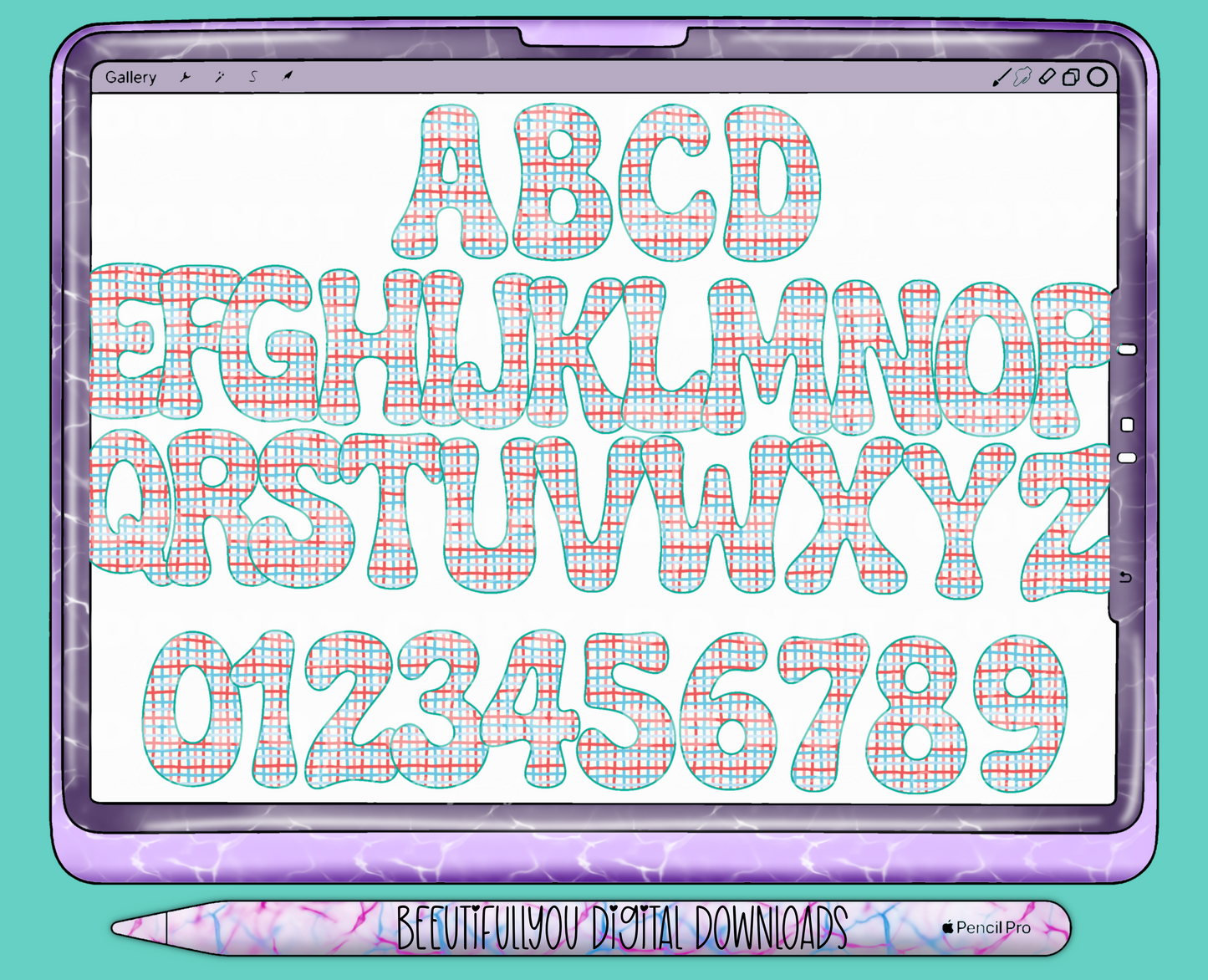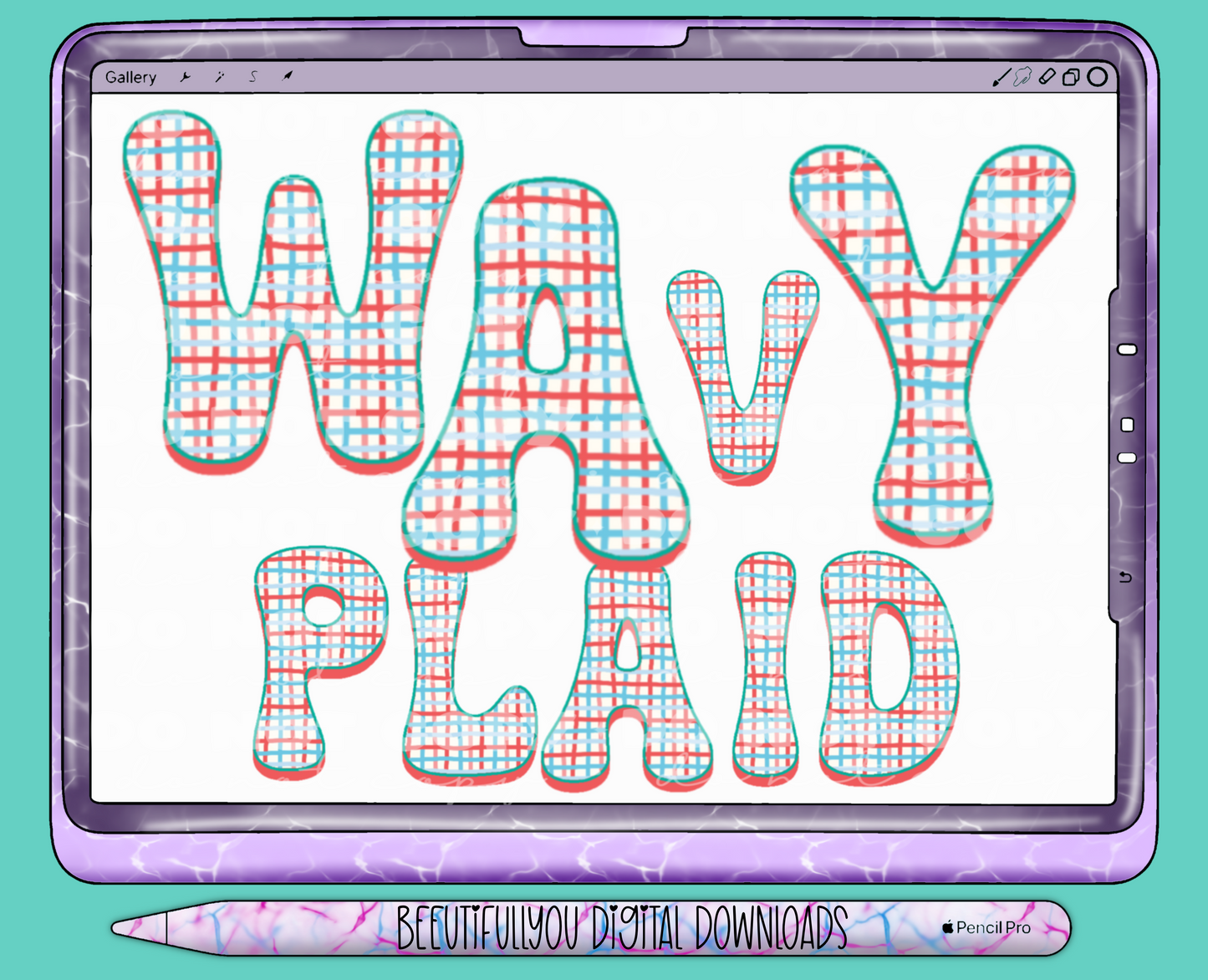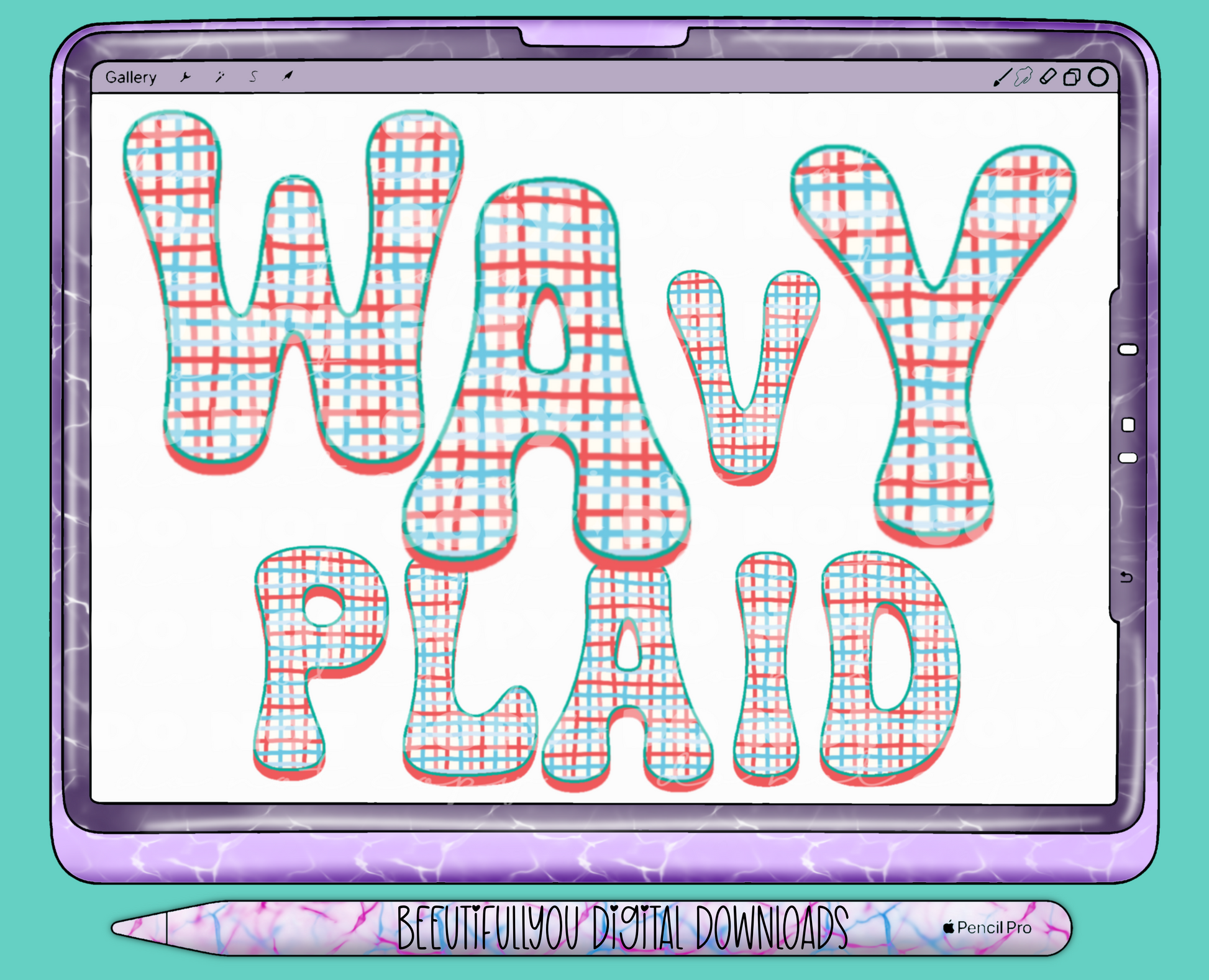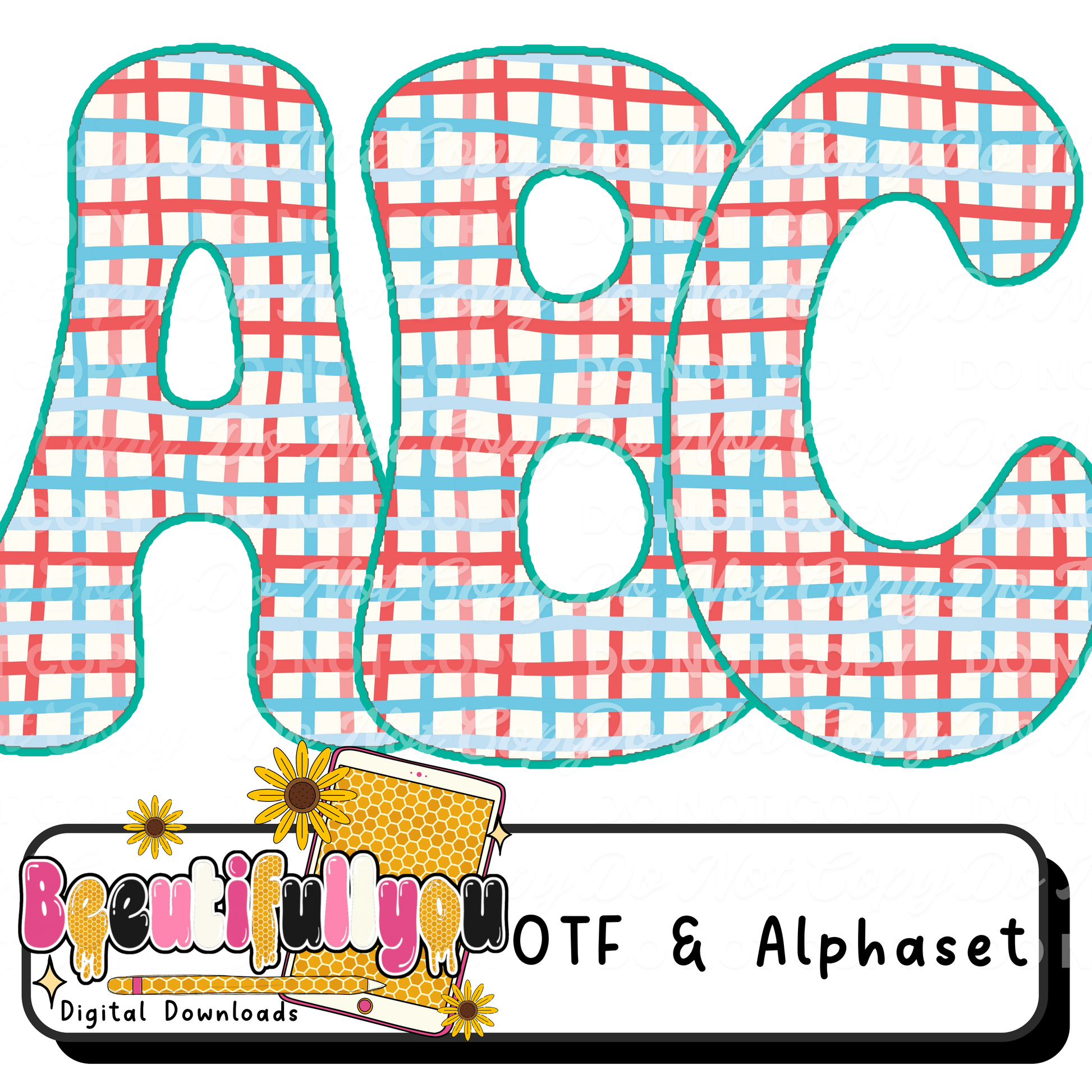
Patriotic Plaid Font OTF + PNG Alphabet | Red Blue Preppy Checkered Letters | 4th of July Bubble Font | Summer Font
🇺🇸✨ Preppy meets patriotic!
This adorable plaid-style font features a red and blue checkered pattern with a soft, hand-drawn bubble letter shape—perfect for trendy summer and 4th of July designs.
This one is PERFECT for boutique-style drops, picnic vibes, and preppy summer aesthetics.
✔ Fun rounded bubble letter style